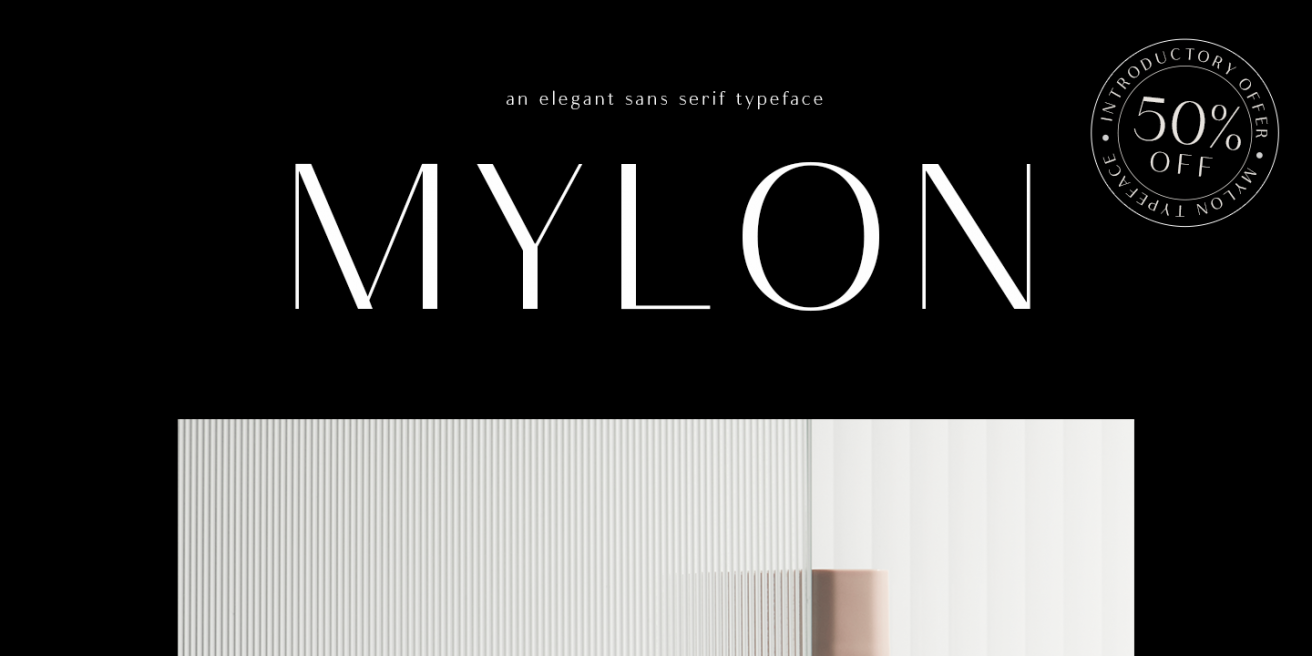
Our December issue of Fontface features Sienna by Paulo Goode, Imagist by Fenotype, Mylon by Nasir Udin, and Alfabet by Machalski. We also link to our book review of Dave Addey's Typeset in the Future, Jessica Hische's upcoming Brave, Kind, & Grateful: a daily gratitude journal, and the 'Women in Type' research project.
Sienna is the perfect serif family to cozy up to. Its warm, welcoming demeanor is a delight to read in paragraphs, logos, and headlines. Swash alternates, variable versions, and small caps add plenty of versatility.
Sienna
Paulo Goode
The wide footprint and classic look of Fenotype’s Imagist family will leave a lasting impression. From its lively rhythm to the pronounced ball terminals, it’s a gorgeous display serif.
Imagist
Fenotype
Nasir Udin’s elegant Mylon family is simple yet sophisticated. It balances delicately on thin lines and never goes overboard with contrast even in its boldest weights, giving it a gentle feel.
Mylon
Nasir Udin
Mateusz Machalski’s Alfabet is a strong geometric sans with clear legibility. Its sturdy shape remains easy to read in paragraphs and hits hard in larger sizes.
Alfabet
MACHALSKI